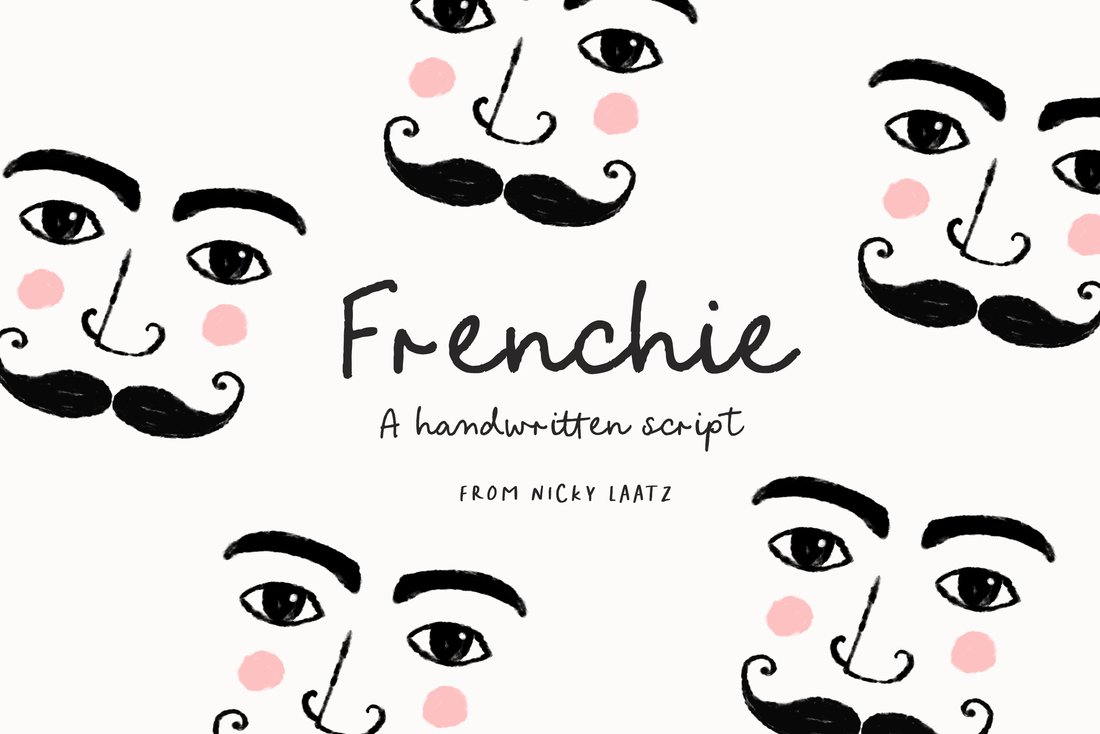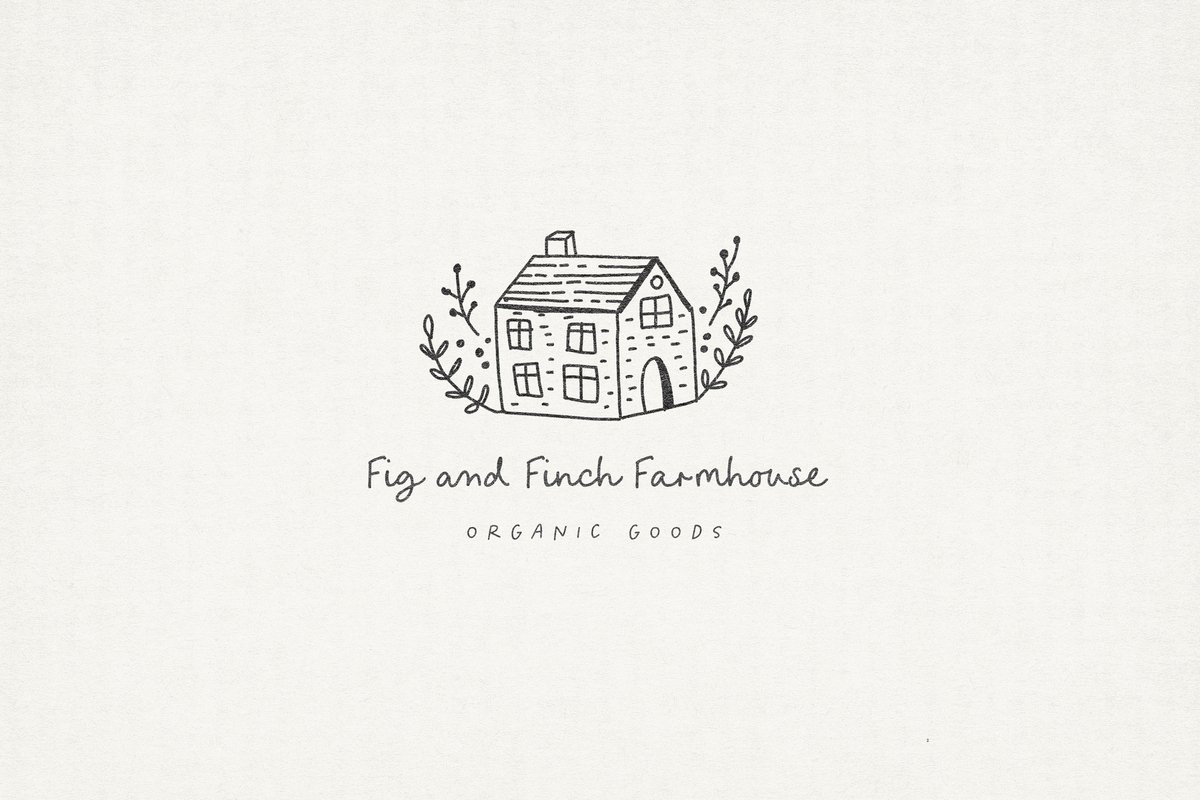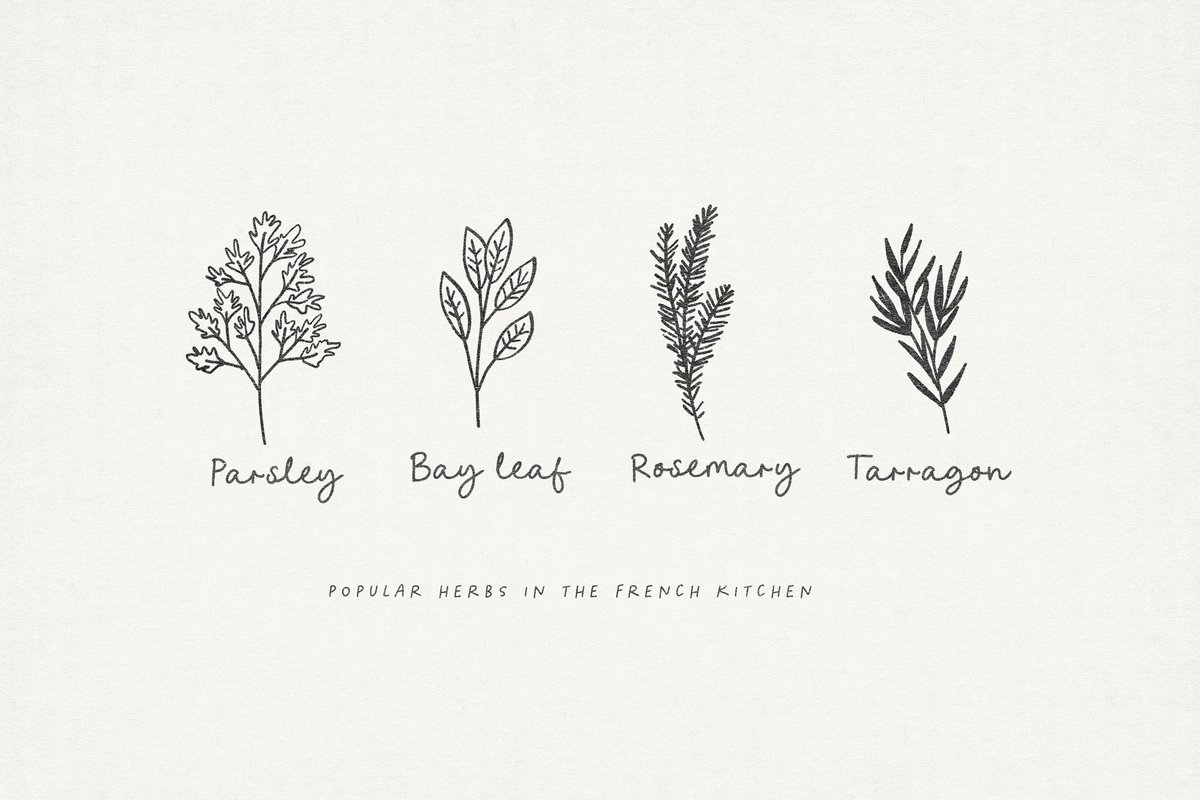
Frenchie Font
Say hello to Frenchie Mini Font :) A sweet little handwritten rollerball script. Great for greeting cards, quaint branding, Children's Books, Christmas labels and so much more :)
Turn on your ligatures to get an even more natural look :)
Unlike the demo version , Frenchie has a full Character set with numerals, punctuation and ligatures.